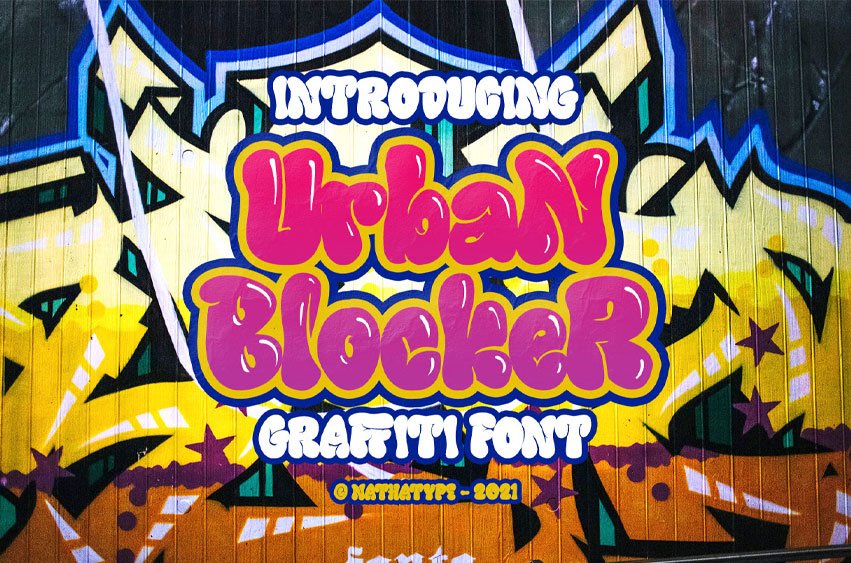
Urban Blocker Font is bubble graffiti font can be used for a host of different content needs and projects. An excellent choice to add the right amount of street vibe and playfulness.
Create gorgeous printed quotes, standout packaging, or beautiful t-shirts! You can even use it to create amazing headings, logos, menus, and social media graphics.
Chalkboard includes multilingual options to make your branding reach a global audience.